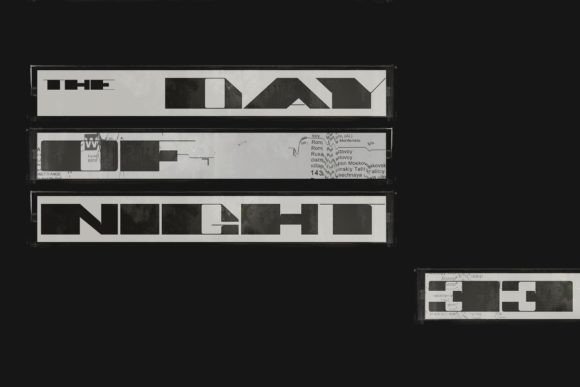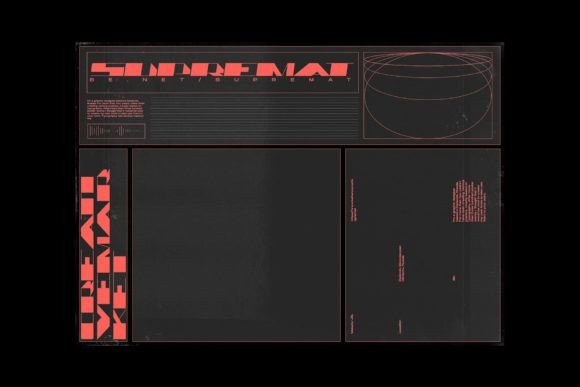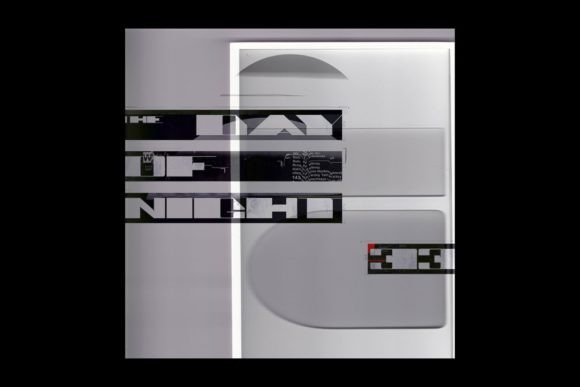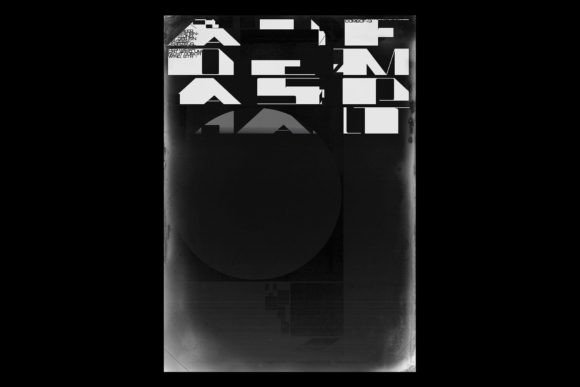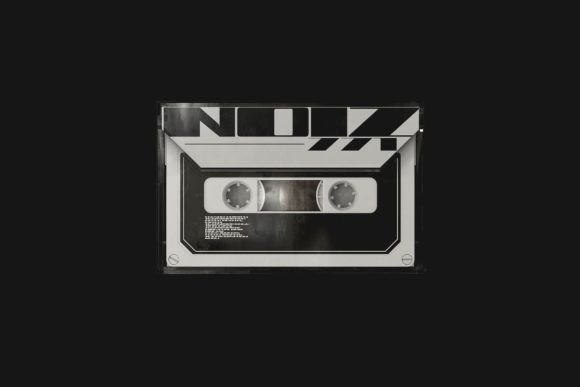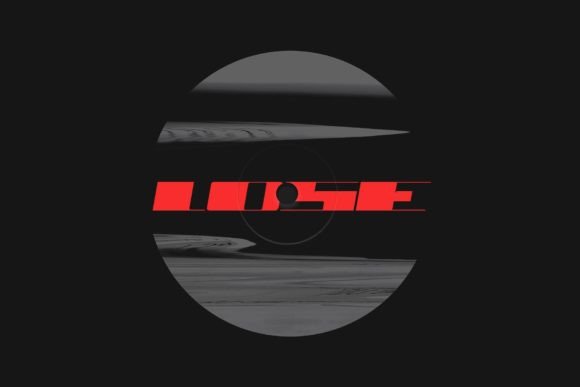
Unleashing the Power of Anker Font: A Comprehensive Guide
In the world of typography, few fonts have made a statement as bold as the Anker Font. This super-wide and heavy typeface has taken the design community by storm, offering a unique blend of strength and elegance. With its striking contrast between vertical and horizontal stems, Anker exudes a certain defiant and aggressive character that demands attention. In this article, we’ll dive into the world of Anker Font, exploring its features, uses, and what makes it a favorite among designers and crafters.
The Origins of Anker Font
The name Anker, which means “anchor” in German, is a fitting moniker for this robust typeface. An anchor is a symbol of stability and strength, often associated with heavy weights and sharp, thin elements. These characteristics are beautifully reflected in the Anker Font, making it a perfect representation of its namesake.
Design Characteristics of Anker Font
Anker Font boasts a distinctive design that sets it apart from other typefaces. Its super-wide and heavy structure makes it perfect for creating eye-catching titles, logos, and typographic compositions. The font’s high contrast between vertical and horizontal stems adds a touch of sophistication, making it suitable for a wide range of design applications.
Uses of Anker Font
Anker Font is a versatile typeface that can be used in various design projects, including:
- Super Large Titles: Anker Font is perfect for creating bold, attention-grabbing titles that make a statement.
- Short Words and Phrases: The font’s heavy structure and high contrast make it ideal for short words and phrases that need to pack a punch.
- Logos and Branding: Anker Font’s unique character makes it an excellent choice for logos and branding projects that require a strong, memorable identity.
- Typographic Compositions: The font’s versatility and expressiveness make it perfect for creating stunning typographic compositions that showcase a designer’s creativity.
Why Designers and Crafters Love Anker Font
Anker Font has quickly become a favorite among designers and crafters due to its unique combination of strength and elegance. Here are a few reasons why:
- Uniqueness: Anker Font’s distinctive design sets it apart from other typefaces, making it a great choice for designers looking to create something truly original.
- Versatility: The font’s versatility and expressiveness make it suitable for a wide range of design applications, from titles and logos to typographic compositions.
- Emotional Impact: Anker Font’s bold, aggressive character makes it perfect for designs that require a strong emotional impact.
Tips for Using Anker Font Effectively
To get the most out of Anker Font, here are a few tips to keep in mind:
- Use it sparingly: Due to its bold nature, Anker Font is best used sparingly to avoid overwhelming the viewer.
- Experiment with sizes: Anker Font looks great in super large sizes, but it can also be effective in smaller sizes when used in a typographic composition.
- Pair it with contrasting fonts: Anker Font’s bold character makes it perfect for pairing with contrasting fonts to create visual interest.
Anker Font is a powerful and versatile typeface that has captured the hearts of designers and crafters worldwide. Its unique combination of strength and elegance makes it perfect for a wide range of design applications, from titles and logos to typographic compositions. With its bold, aggressive character and high contrast between vertical and horizontal stems, Anker Font is sure to make a statement in any design project.